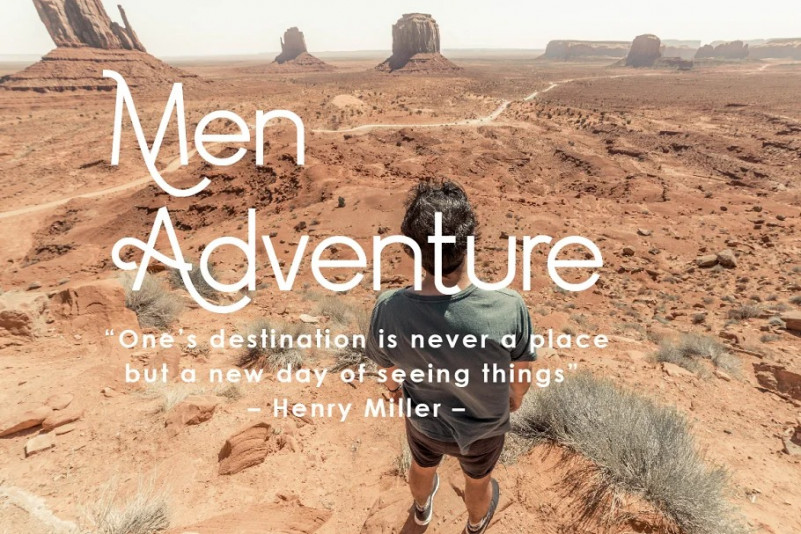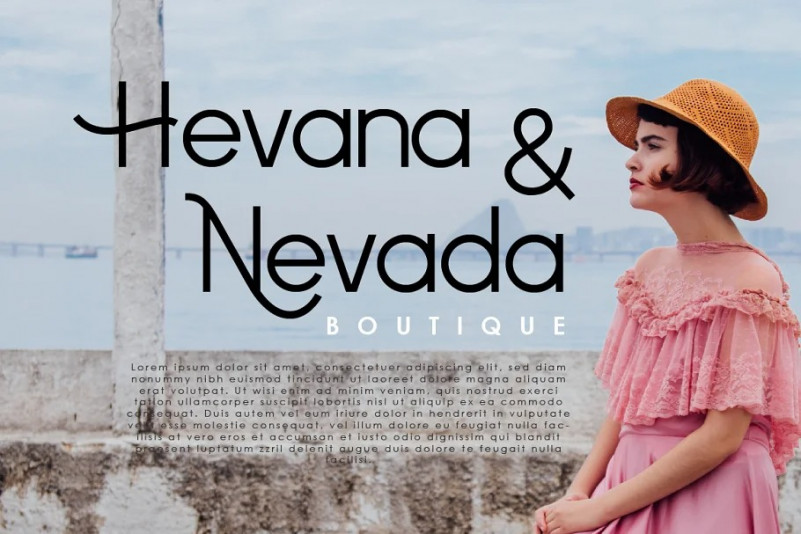
Forzan Light Sans Serif Font
Forzan is collection font with natural movement make looks elegant, classy and beauty for your project. Forzan is perfect for branding projects, logo, wedding designs, social media posts, advertisements, product packaging, product designs, label, photography, watermark, invitation, stationery and any projects
This gorgeous font includes all lowercase and uppercase characters, numbers, punctuation, an array of standard ligatures and a selection of international characters as well. Whether you are using it for cartoon-related designs, lable, children’s games, quotes, t-shirts, titles, merchandise, brand names, book covers, posters, or just any creation that requires a touch of beauty, this font is a great choice.